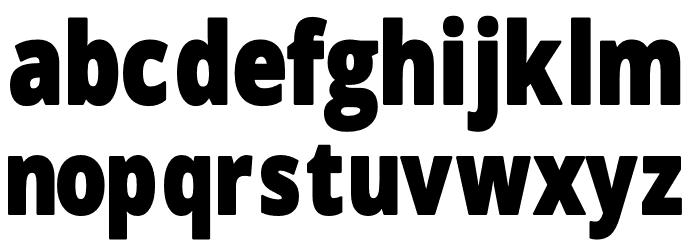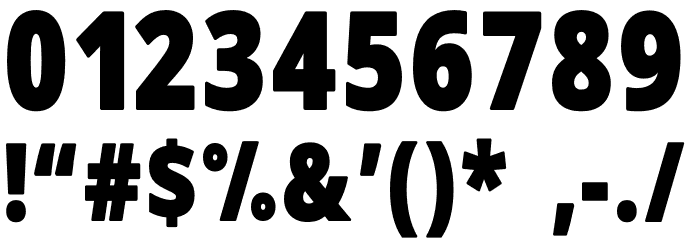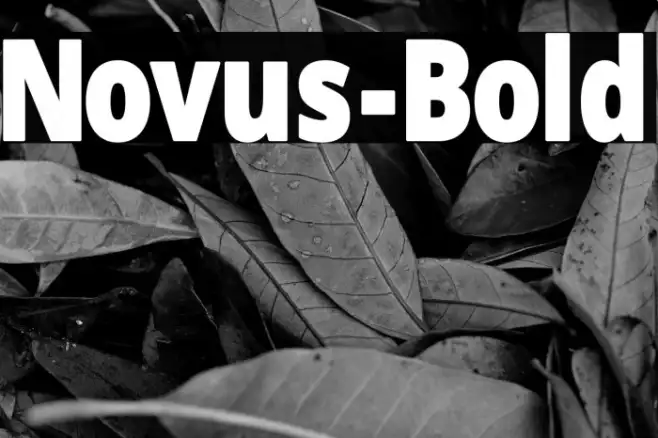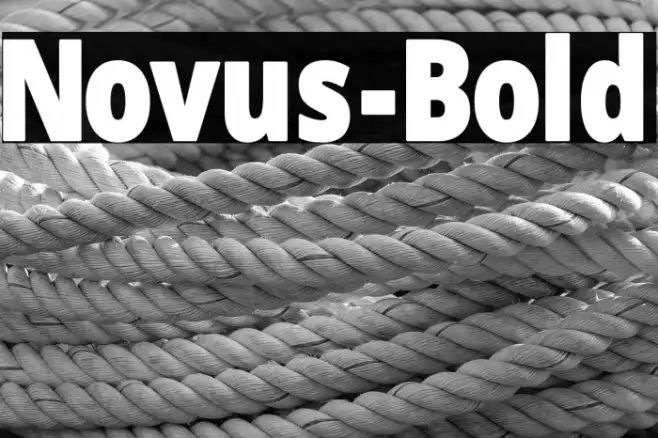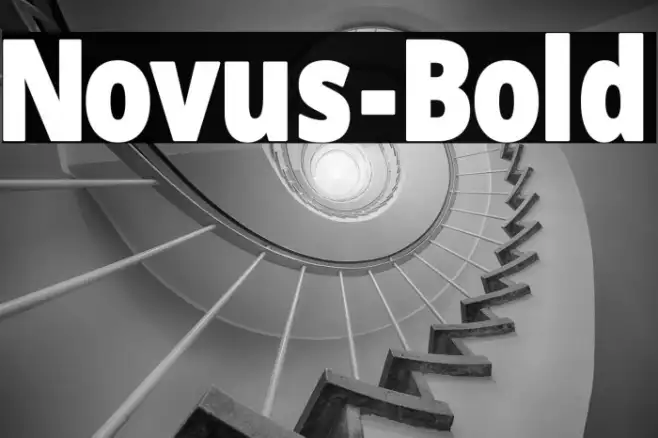
Novus-Bold Font
This font features bold, strong letterforms with a modern and impactful appearance. The characters are sans-serif, providing a clean and straightforward look. The uppercase and lowercase letters maintain a consistent weight, contributing to a cohesive design. The numerals are equally bold, ensuring visibility and readability. Special characters are designed with the same thickness, making them stand out effectively. The overall style is suitable for making statements and grabbing attention, ideal for headlines and branding.
A bold, modern sans-serif font with strong, impactful letterforms.
- Proposed Projects: Ideal for branding, advertising, headlines, and any project requiring a strong visual impact.
- Use Case: Headlines, Logos, Branding